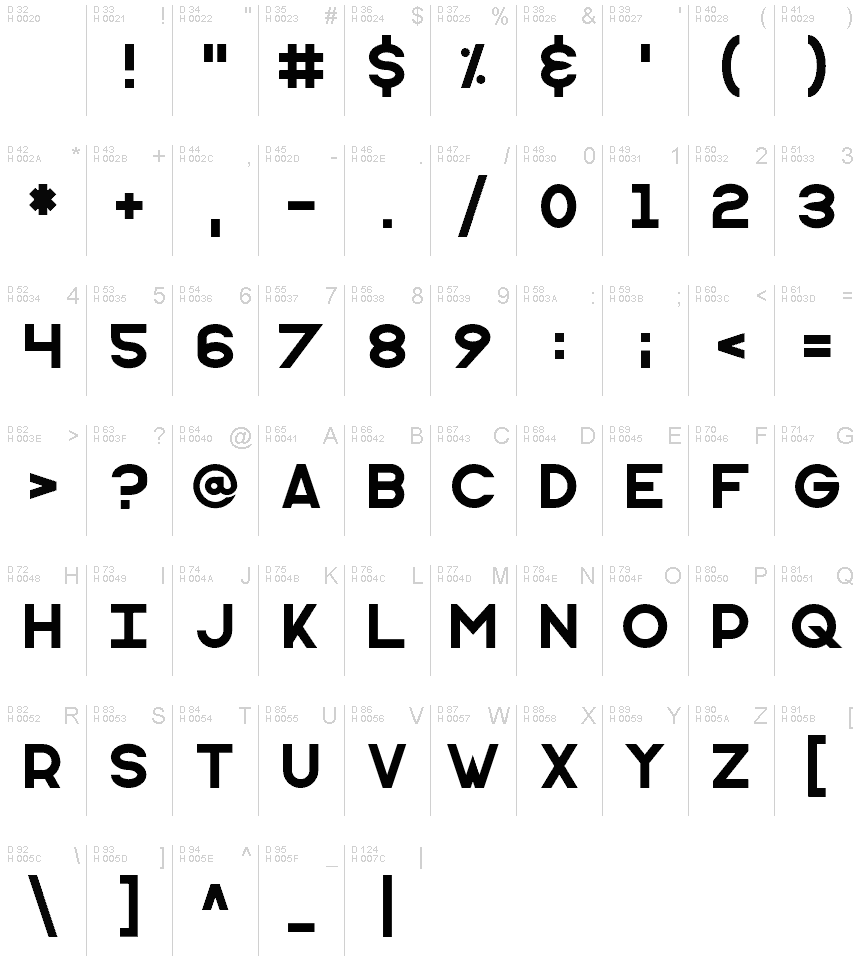
MonometricRegular
Monometric is a bold, retro-inspired sans serif typeface that prides itself on its consistent, uniform aesthetic. Designed by Will Stewart, this all-caps font boasts a striking, eye-catching appearance with its thick, geometric letterforms and expansive character set.
Monometric's unwavering metric ensures a cohesive, harmonious feel across headlines, logos, and other display typography applications. Its bold, no-frills personality lends itself well to a variety of design styles, from vintage-inspired branding to modern, minimalist compositions.
With a comprehensive character inventory and the potential for additional weights, Monometric offers a versatile typographic solution for creatives seeking a distinctive, impactful font.
Monometric's unwavering metric ensures a cohesive, harmonious feel across headlines, logos, and other display typography applications. Its bold, no-frills personality lends itself well to a variety of design styles, from vintage-inspired branding to modern, minimalist compositions.
With a comprehensive character inventory and the potential for additional weights, Monometric offers a versatile typographic solution for creatives seeking a distinctive, impactful font.